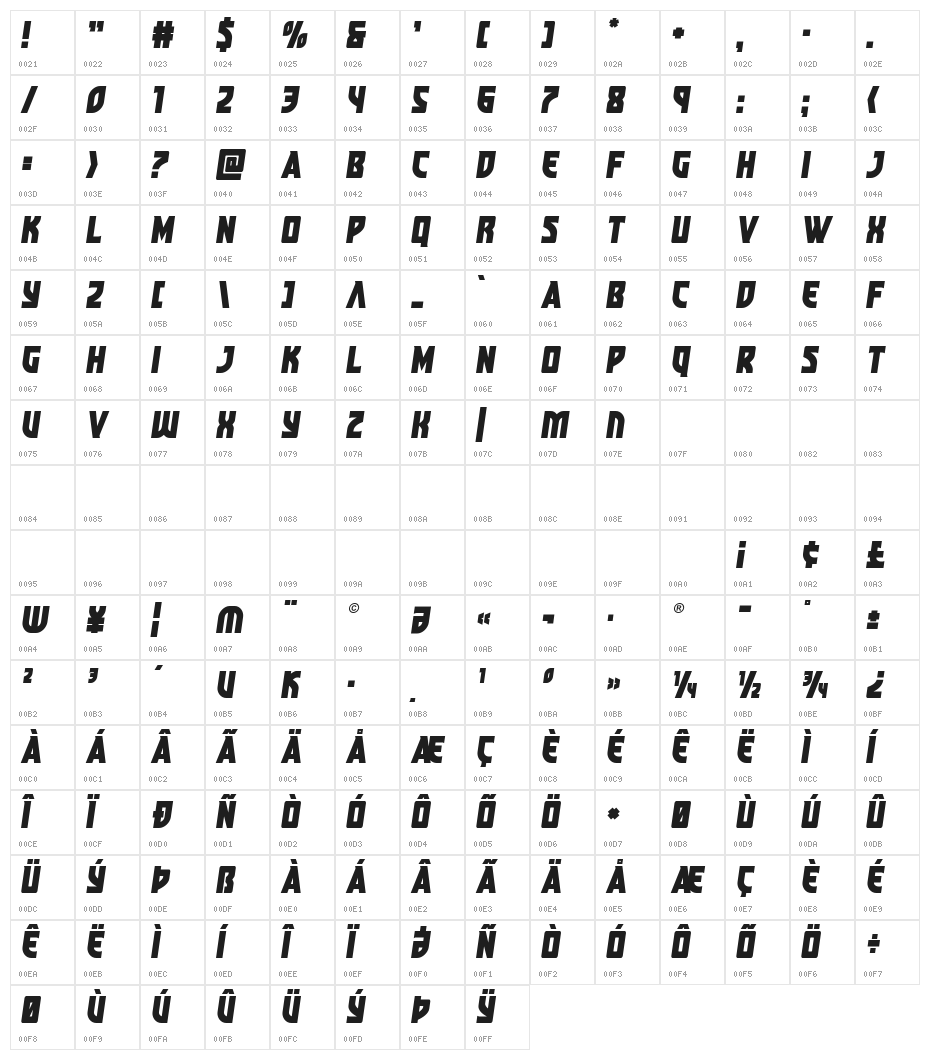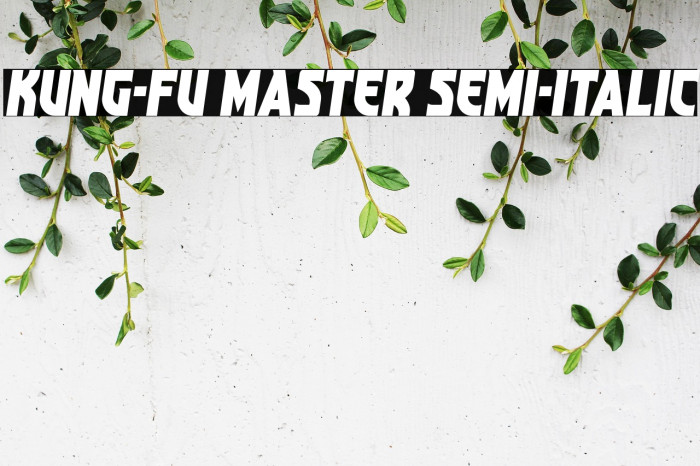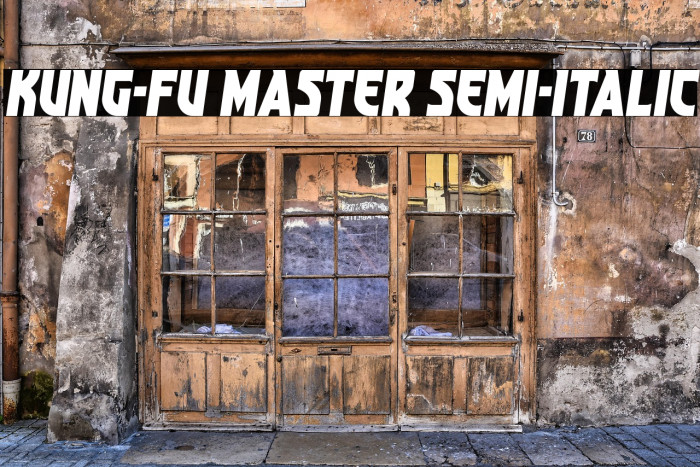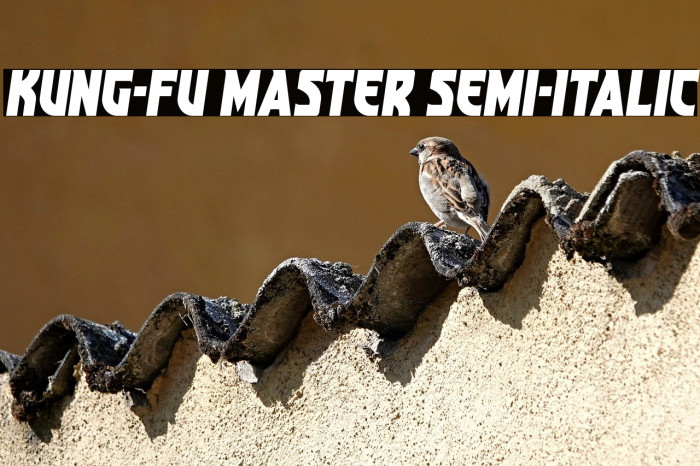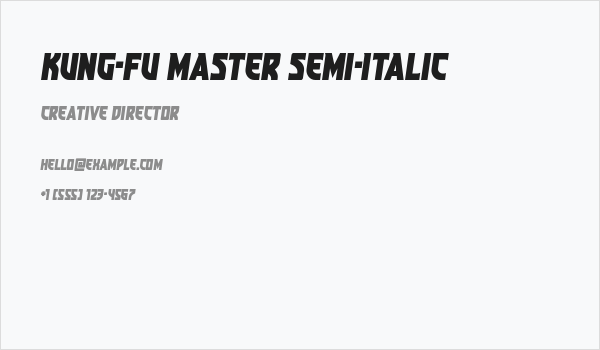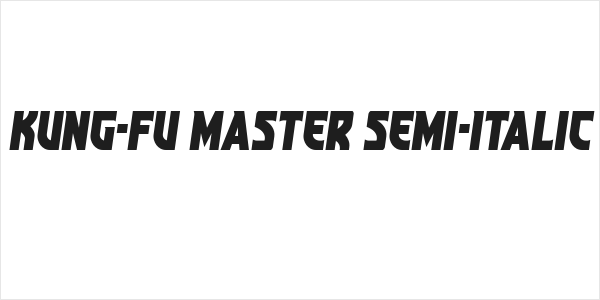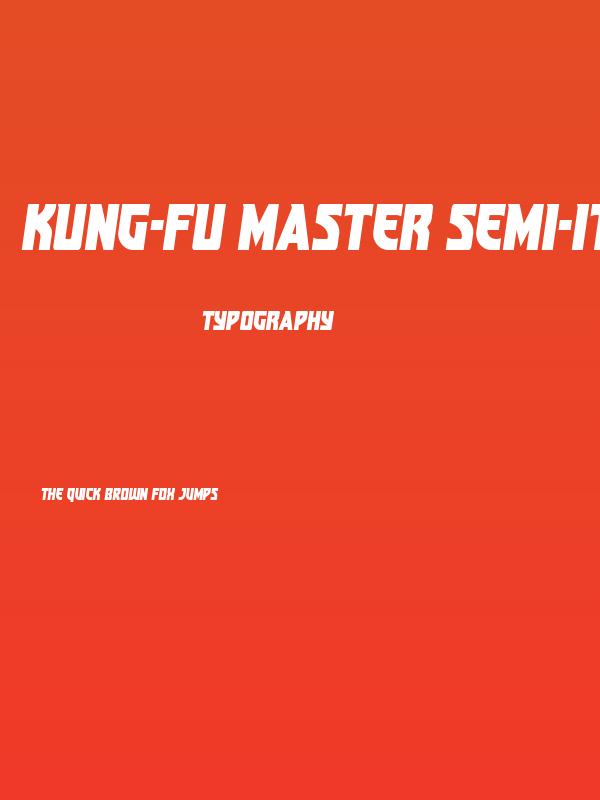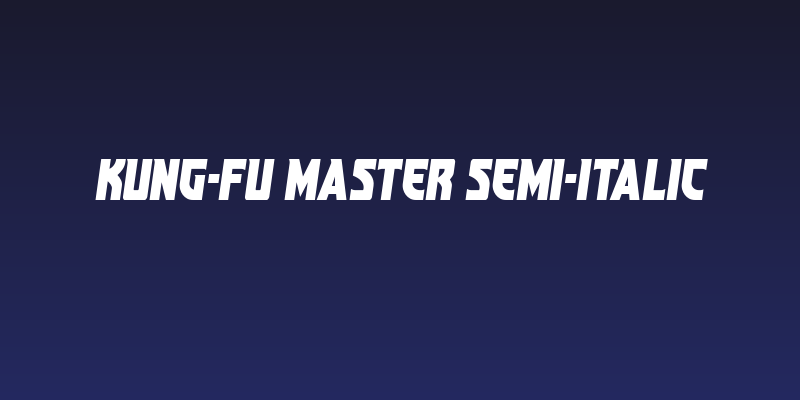
Kung-Fu Master Semi-Italic Font
Kung-Fu Master Semi-Italic Description
This font features a bold and dynamic style with a semi-italic slant, giving it a sense of movement and energy. The characters are thick and robust, with sharp angles and a slightly condensed form. The uppercase letters are particularly striking, with a strong presence that commands attention. The numbers and special characters maintain the same boldness, ensuring consistency across all elements. This font's unique style makes it suitable for projects that require a bold statement or a sense of action and excitement.
Proposed ProjectsIdeal for sports branding, action movie posters, video game titles, and dynamic advertising campaigns.